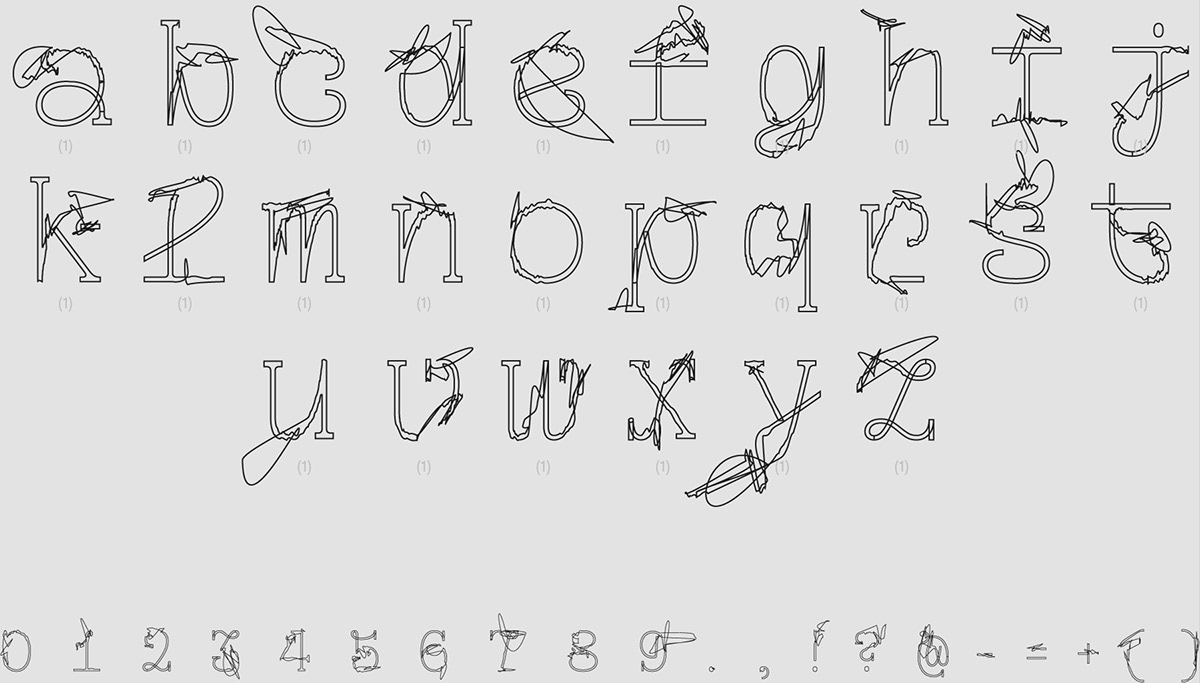
What would a font look like if it was in love?
The font Future Romance is built on the synthesis of the feeling of love and prudence of AI. Artificially created unpredictability becomes the basis of the idea of the outlines. The variability of the font makes it possible to be sharp, annoyed, excited, nervous, inspired and in love at the same time.
The starting point for Future Romance was one of TypeType's TT Geekette weights. We helped him feel in love, giving a new sound and architectural form.